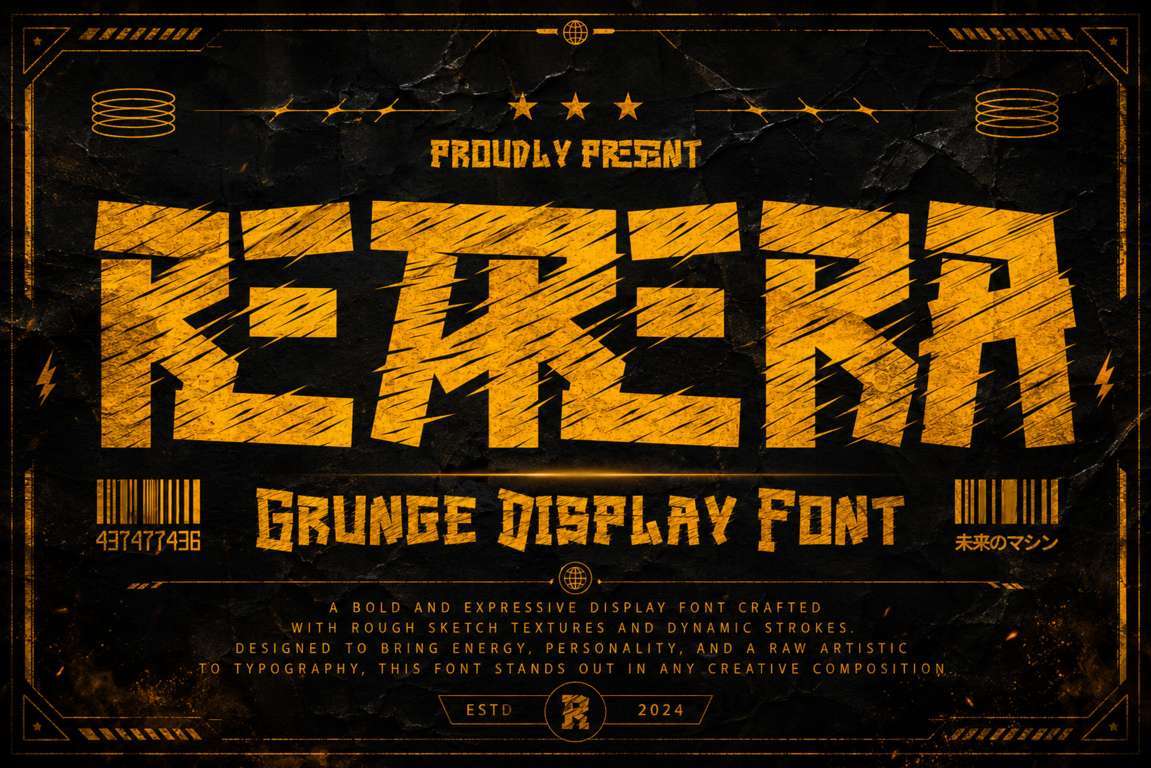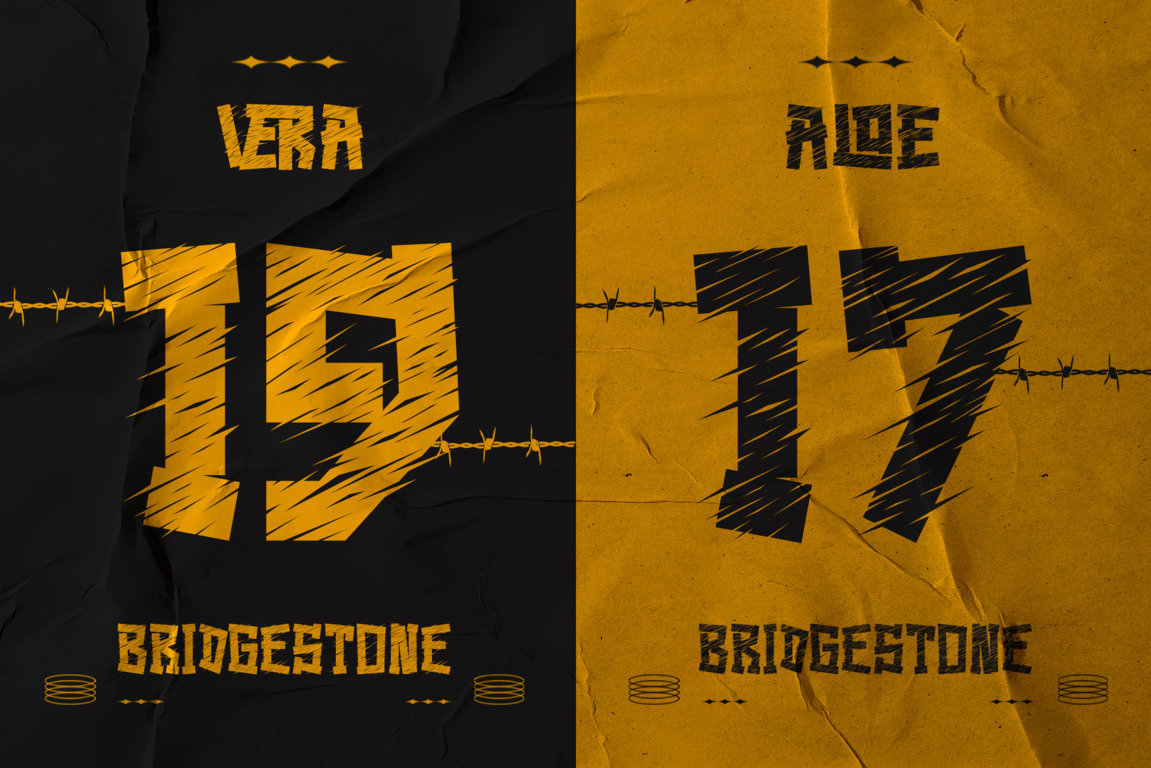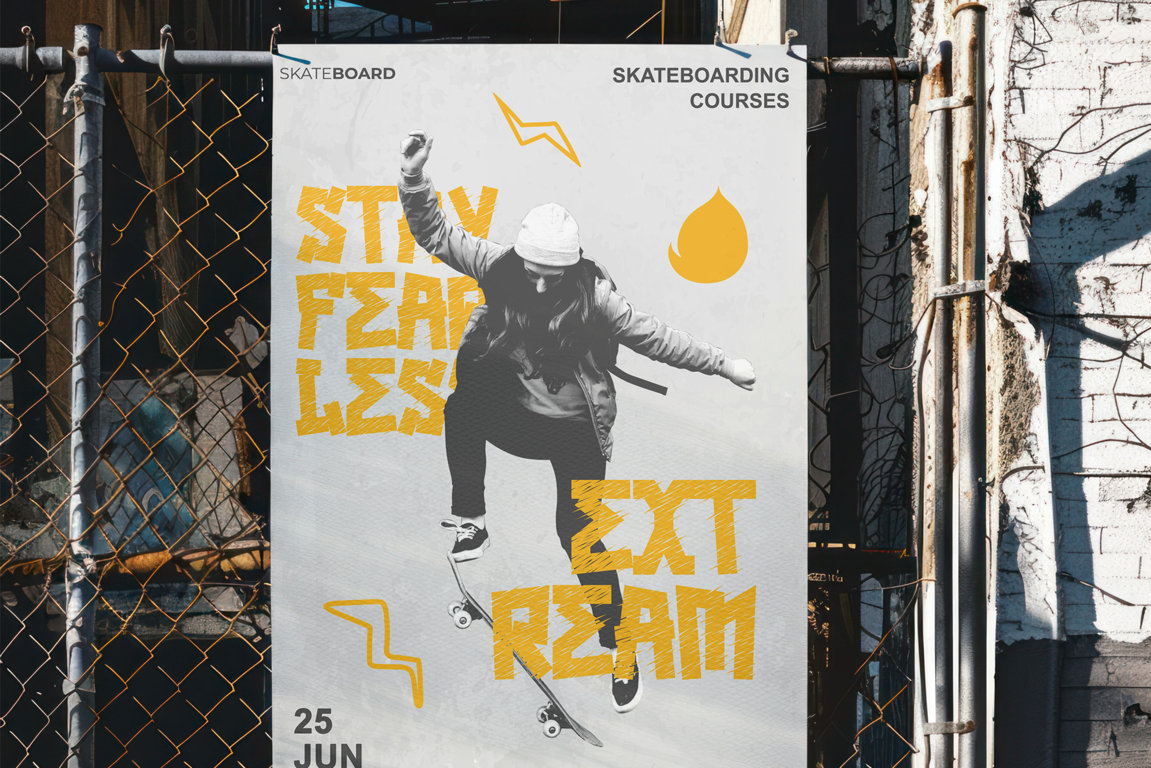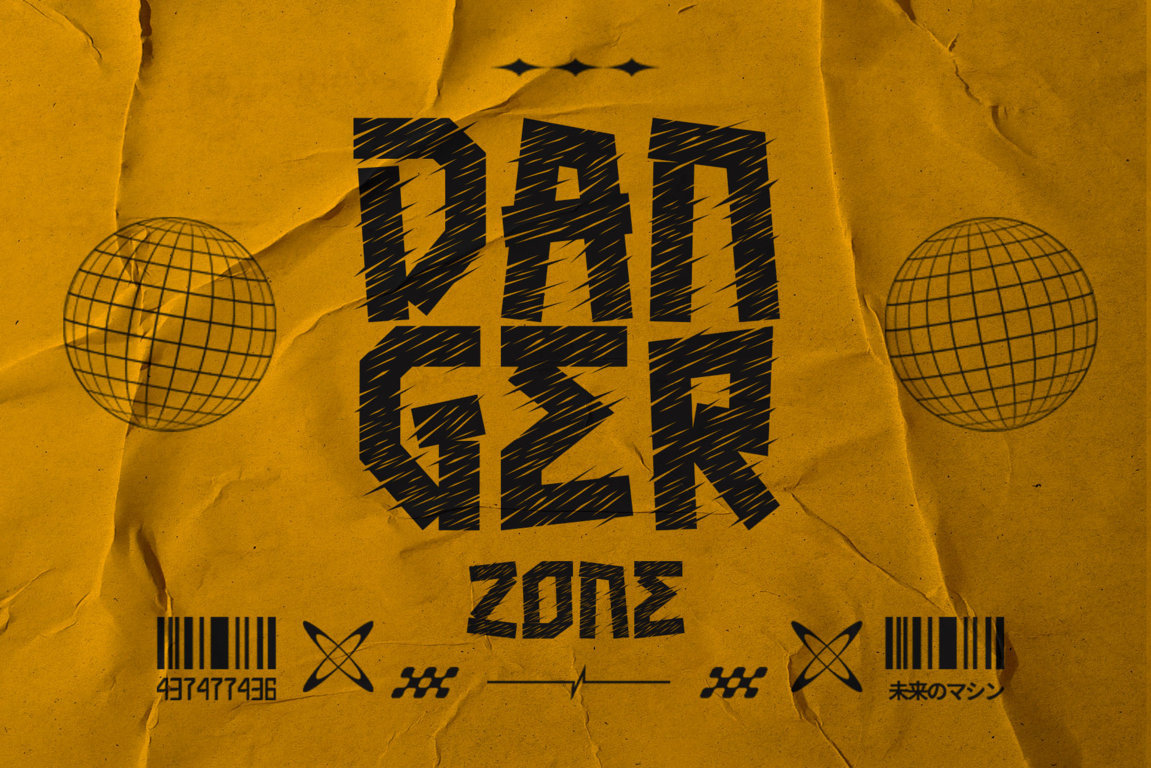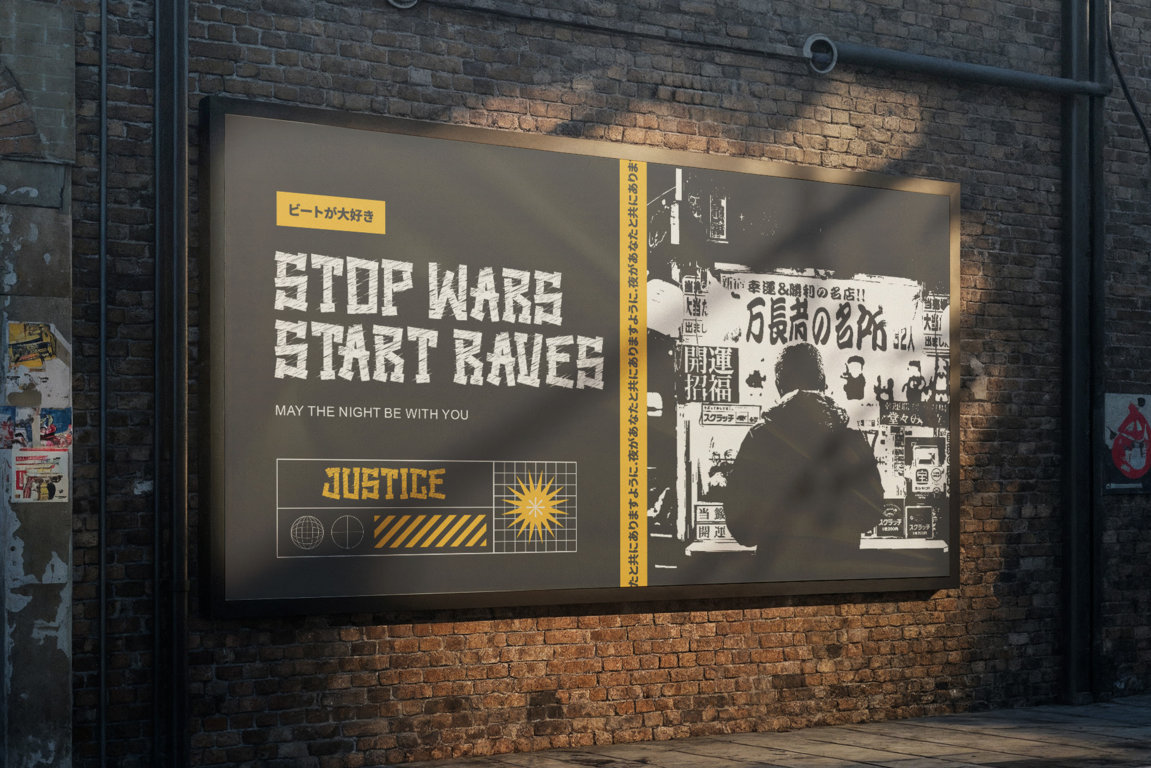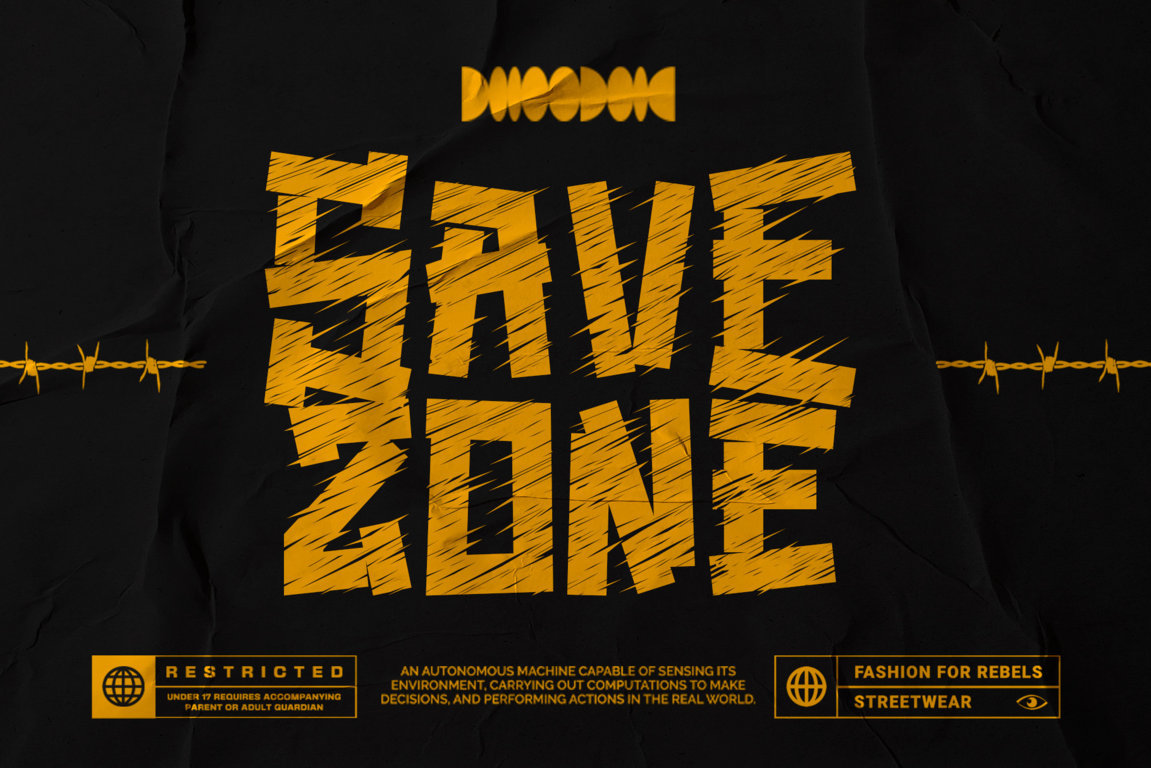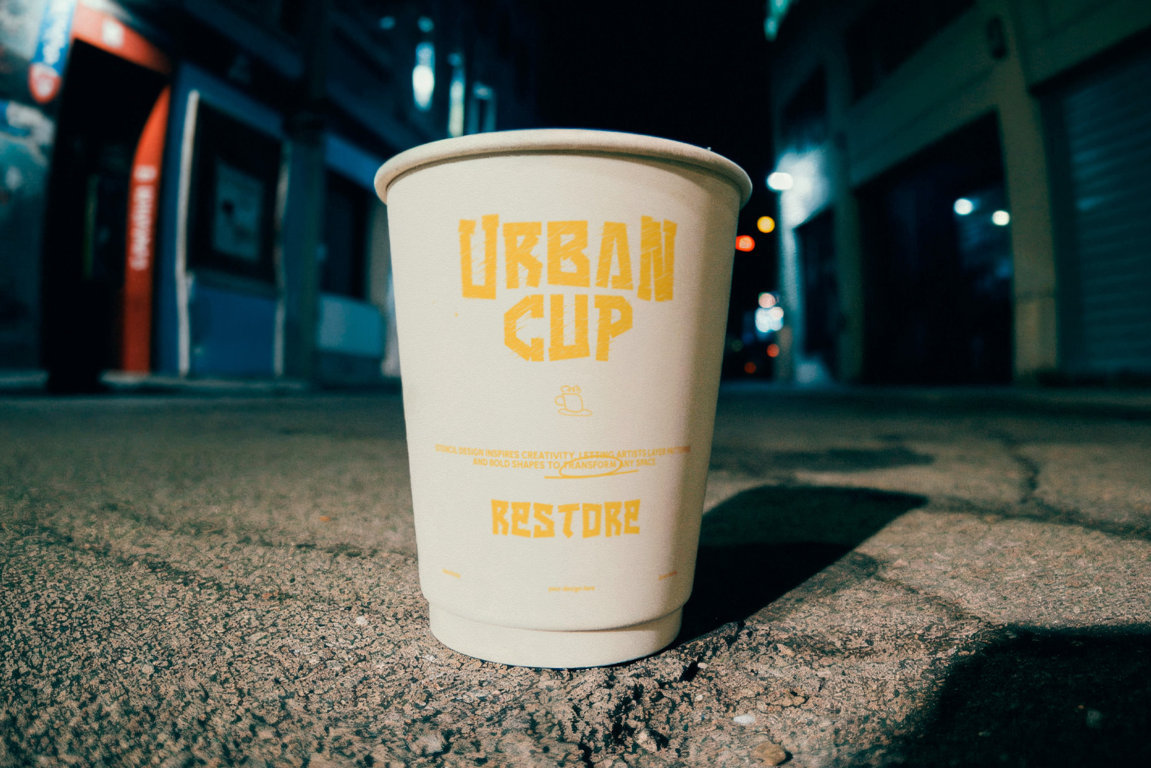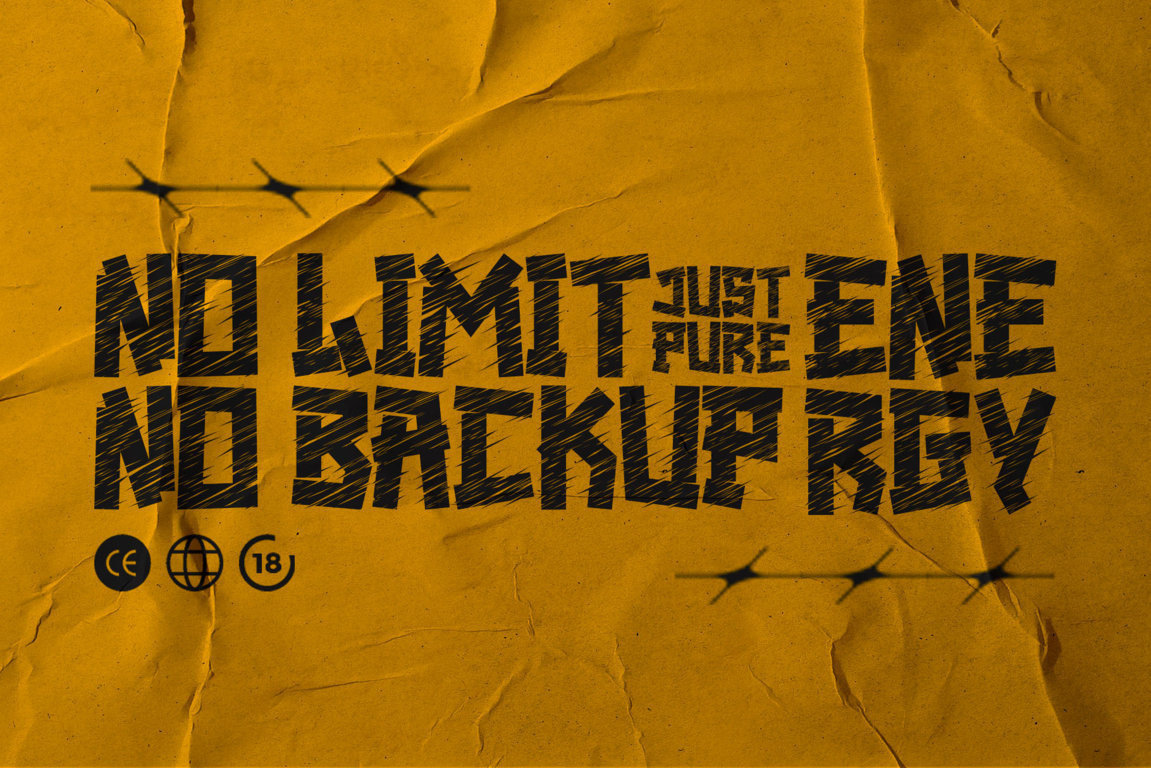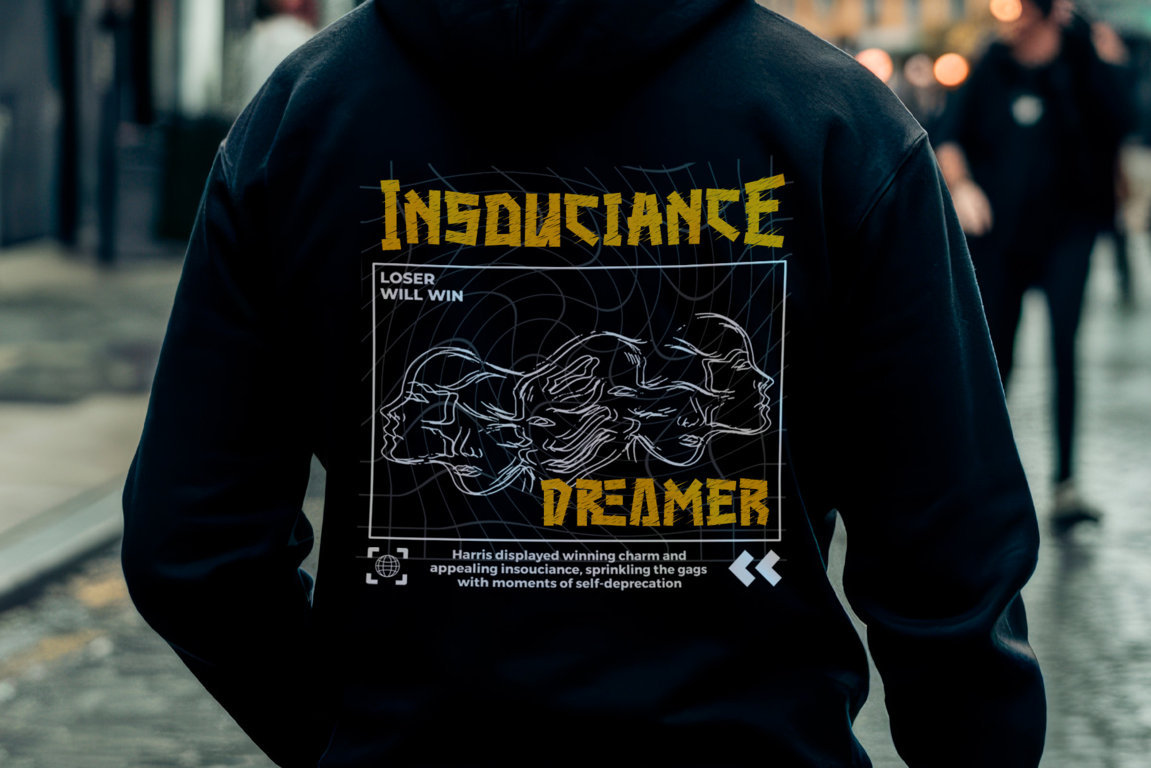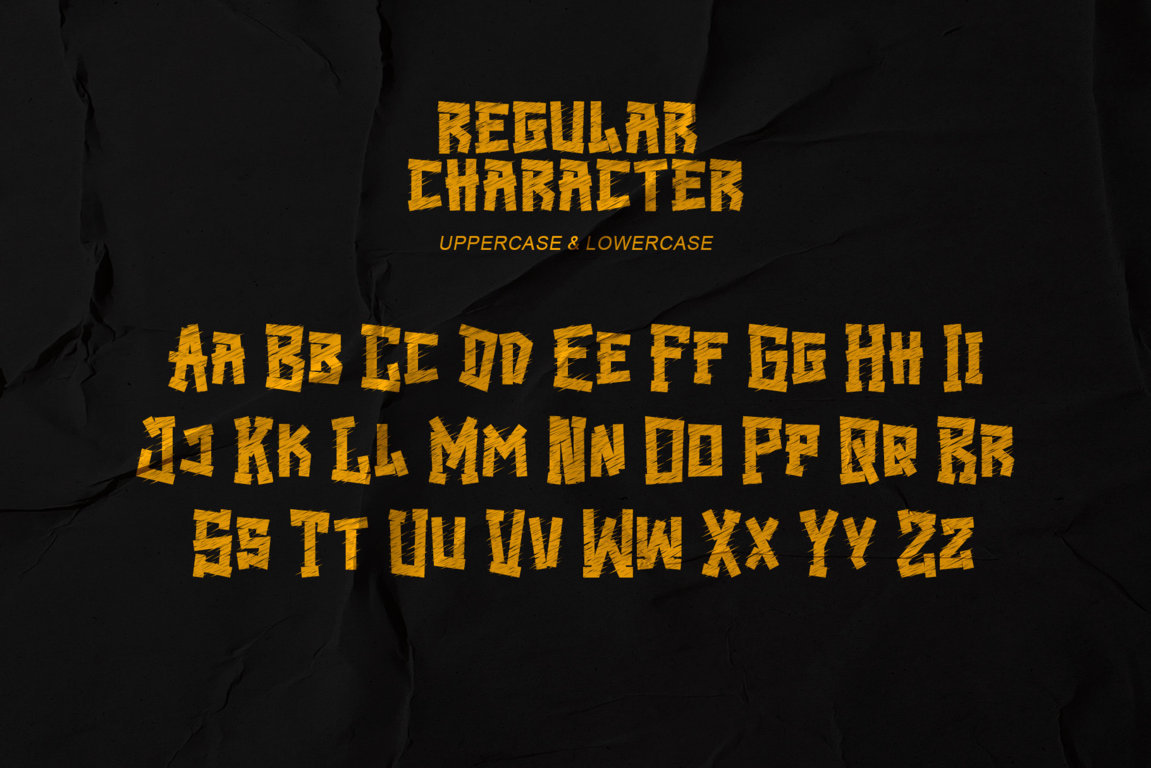
Retrera is a bold grunge display font created for designs that demand raw energy, strong personality, and immediate visual impact. Its powerful geometric forms are combined with rough hand-sketched textures and dynamic cuts, giving every word an expressive, rebellious, and authentically distressed appearance.
Inspired by street culture, underground posters, extreme sports, industrial graphics, and alternative music artwork, Retrera is perfect for projects that need to look fearless, energetic, and impossible to ignore. Its strong letterforms work especially well in large headlines, logos, posters, apparel, packaging, and promotional graphics.
Retrera includes uppercase and lowercase letters, swashes, alternate characters, titling forms, creative ligatures, accented characters, numerals, punctuation, symbols, and multilingual support. These additional character styles give you more freedom to create unique wordmarks, custom headlines, and distinctive visual identities.
Whether you are designing a streetwear collection, an action-packed gaming title, a rock concert poster, or bold product packaging, Retrera brings a rugged artistic character that helps your work stand out.
Retrera — rough strokes, bold character, and unstoppable creative energy.
Perfect For
- Streetwear and urban fashion branding
- Grunge logos and bold wordmarks
- Music posters and album covers
- Rock, punk, metal, and alternative artwork
- Gaming and esports graphics
- Extreme sports and skateboard designs
- Automotive and motorcycle branding
- T-shirts, apparel, and merchandise
- Product packaging and labels
- Movie and action titles
- YouTube thumbnails and channel graphics
- Event posters and advertisements
- Editorial headlines and social media campaigns
Features:
- Support multilingual; ä ö ü Ä Ö Ü ß ¿ ¡
- Numerals & Punctuation
- uppercase letters
- Alternate, swash, titling, & Ligature
Multilingual Support
Support for 65 languages:
Afrikaans, Albanian, Asu, Basque, Bemba, Bena, Breton, Catalan, Chiga, Cornish, Danish, Dutch, English, Faroese, Filipino, French, Friulian, Galician, German, Gusii, Icelandic, Indonesian, Irish, Italian, Kabuverdianu, Kalenjin, Kinyarwanda, Luo, Luxembourgish, Luyia, Machame, Makhuwa-Meetto, Makonde, Malagasy, Manx, Morisyen, North Ndebele, Norwegian Bokmål, Norwegian
Retrera is a rough grunge display typeface designed for urban logos, streetwear, music artwork, gaming titles, extreme sports graphics, posters, apparel, packaging, and promotional designs. It includes uppercase and lowercase letters, swashes, alternate characters, titling forms, ligatures, accented characters, numerals, punctuation, symbols, and multilingual support.